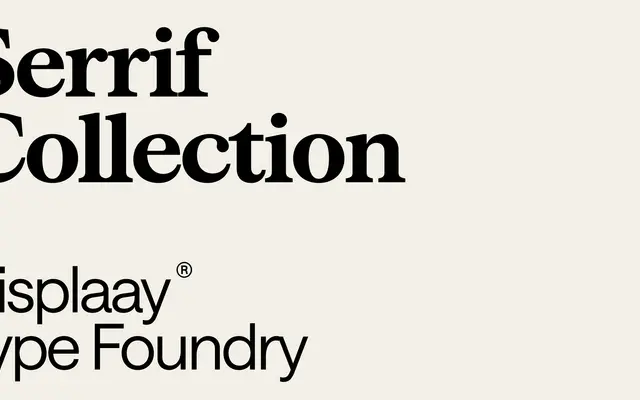
A Scotch Roman-rooted serif collection spanning six families and 84 styles, with proportional and monospaced cuts across compressed, condensed and standard widths, all available as variable fonts.
Built on the Scotch Roman tradition traced back to William Miller's Edinburgh foundry and Richard Austin's punchcutting, the collection frames that nineteenth-century heritage through a deliberately plain, almost anti-expressive contemporary lens. Six families cover proportional and monospaced variants at three widths, each running seven weights with matching italics and three variable axes for weight, slant and width. The deadpan naming convention — Average, Basic, Common, Default, Normal — reads as a pointed comment on the neutrality that type designers often claim for their serifs.
The page explicitly roots Serrif in the Scotch Roman tradition, a class of early nineteenth-century serif typefaces modelled on William Miller's Edinburgh foundry designs, characterised by high contrast and a rational, upright structure.